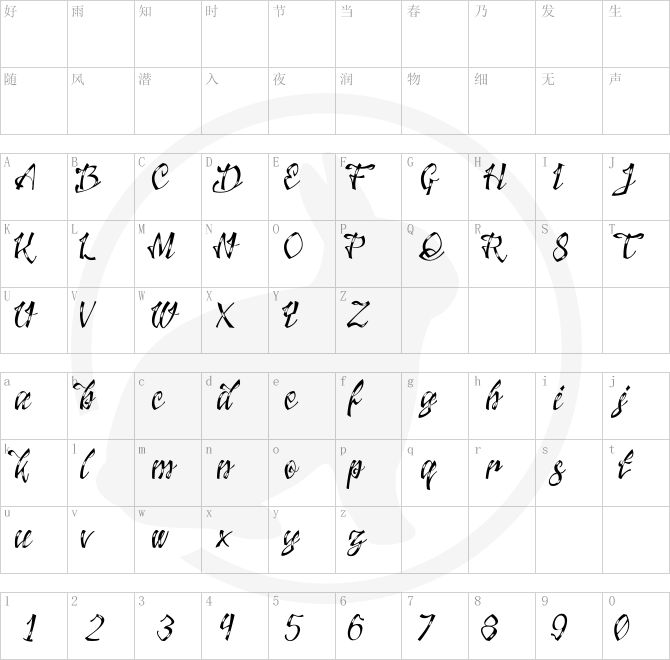
- Font Name:Jacked Eleven Highlight
Jacked-Eleven-Highlight.ttf is a very beautiful artistic font, Jacked-Eleven-Highlight.ttf is widely used in the design and printing of various books and pictures,Jacked-Eleven-Highlight.ttf has a strong visual impact,Jacked-Eleven-Highlight.ttf is a commonly used font in newspapers, magazines and books, and is used in posters, e-commerce Poster design, store design, logo design, font design and other fields.Jacked-Eleven-Highlight.